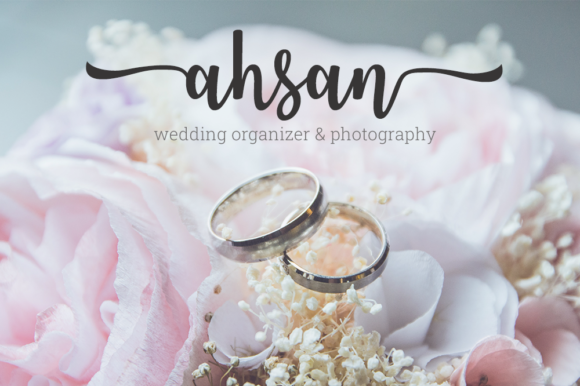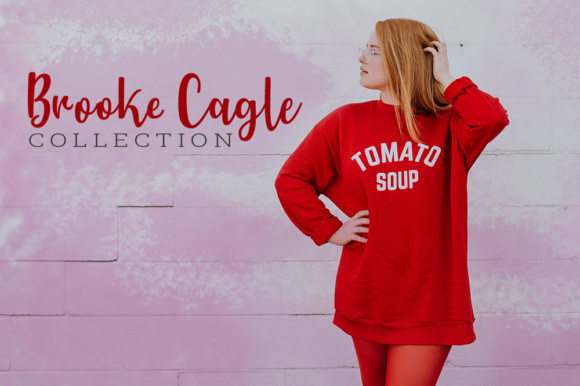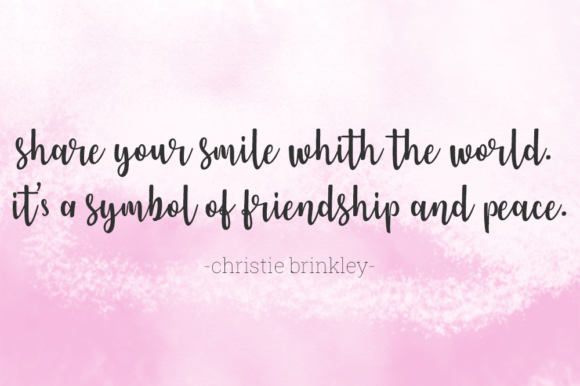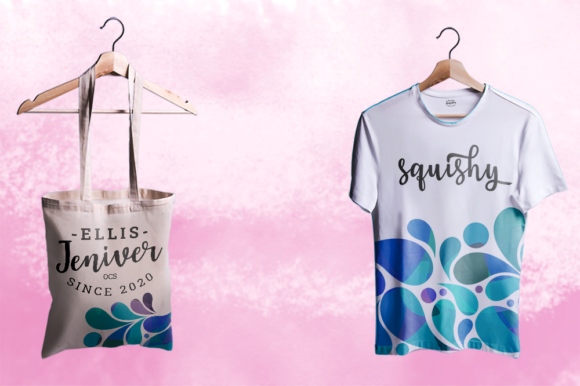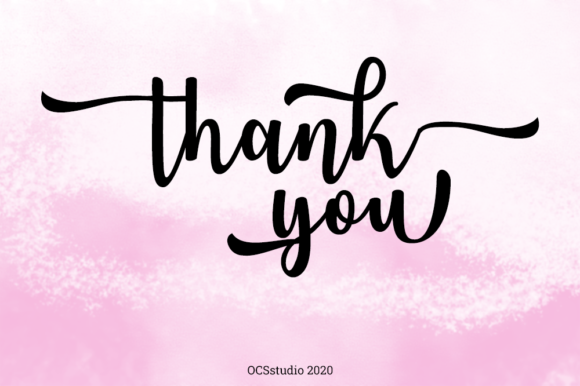
Jeniver Ellis Font
About Jeniver Ellis Font
Jeniver Ellis is a handwritten font made with an enhanced pen brush to make it look clean and neat.
You can use this font for wedding invitations, greeting cards, quotes, logos and much more.